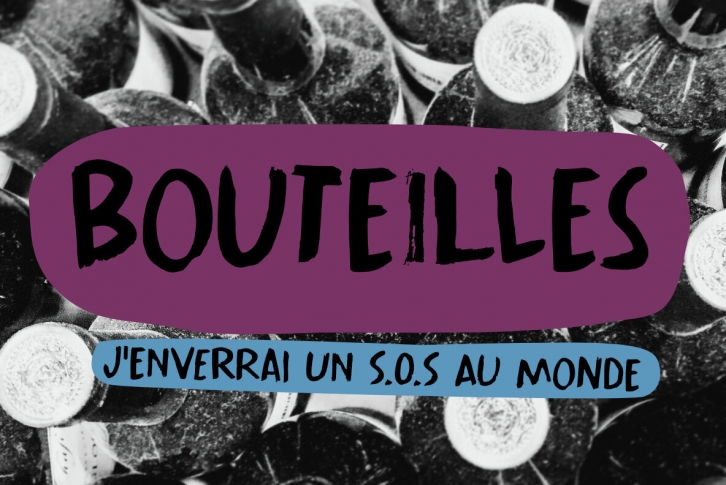
Bouteilles is French for bottles. No fancy name this time, just bottles.
You’re probably wondering why I chose this name… Well, I was taking out the glass (in Holland we recycle just about everything, glass, paper, plastic, metal, garden and kitchen waste, etc.), which included a number of French wine bottles.
As I was throwing them into the underground container one block from where I live, I realised that the word Bouteilles actually sounds great and it would be a nice name for a font! Yes, it is that simple!
Bouteilles is a nice brush font I made with my trusted Chinese ink and a really worn brush I found. It comes with all the diacritics you need plus two sets of alternates, which you can play with!